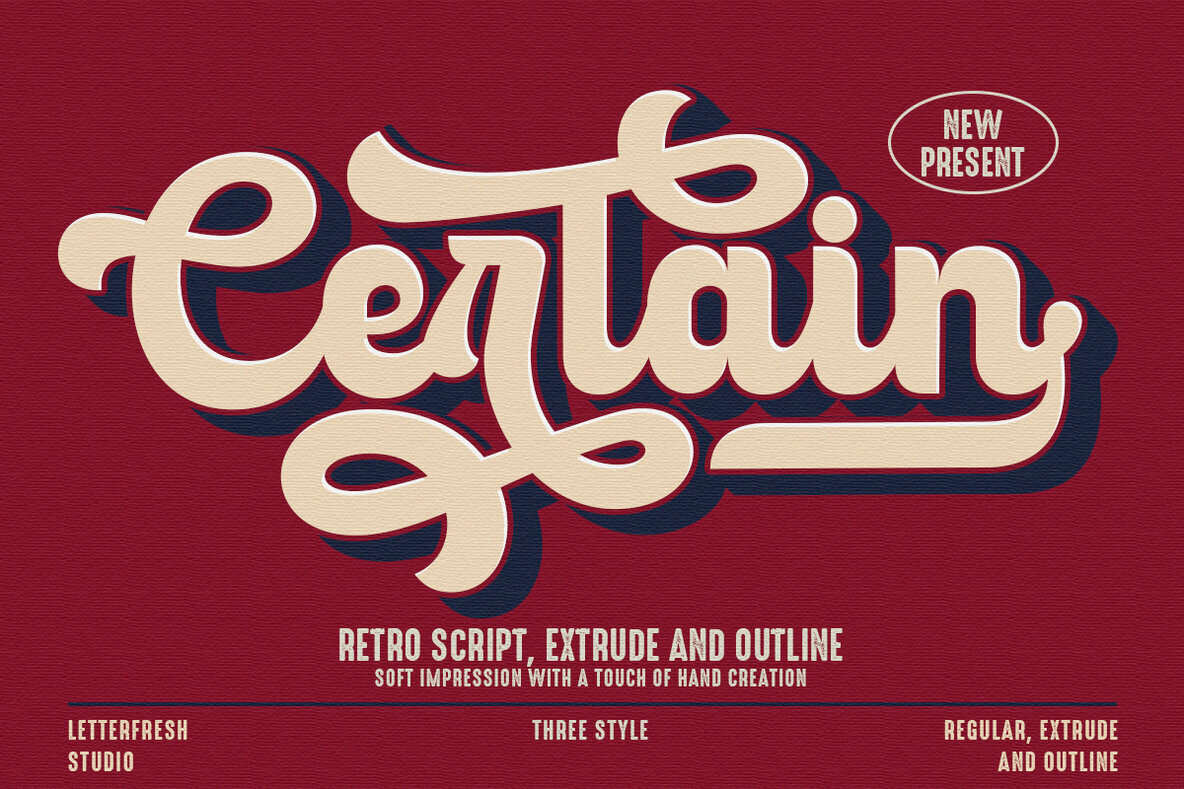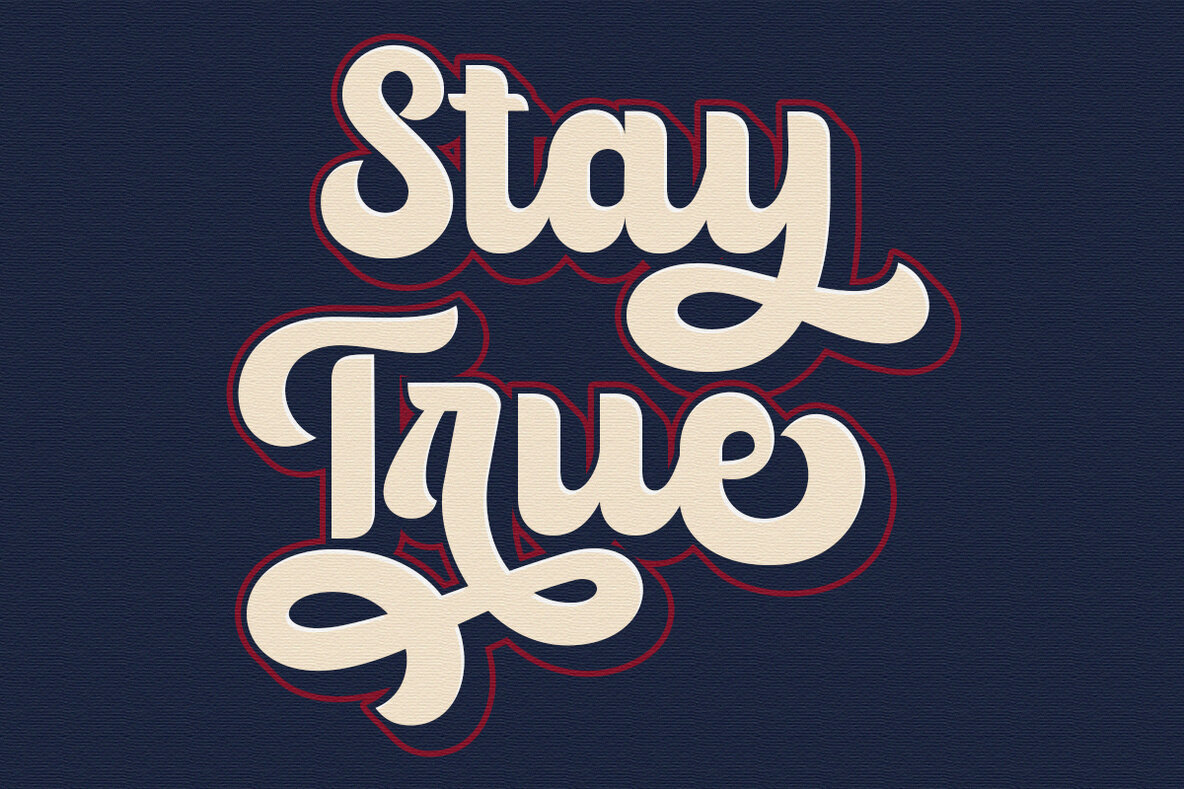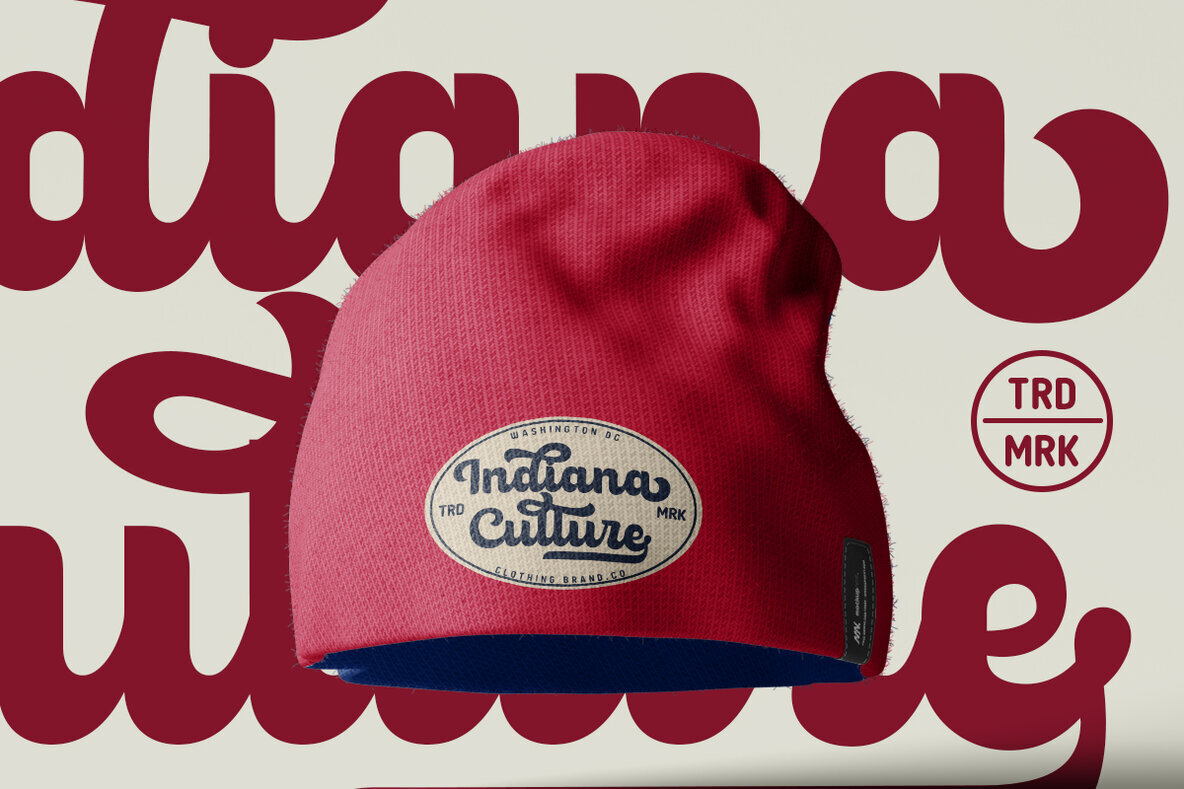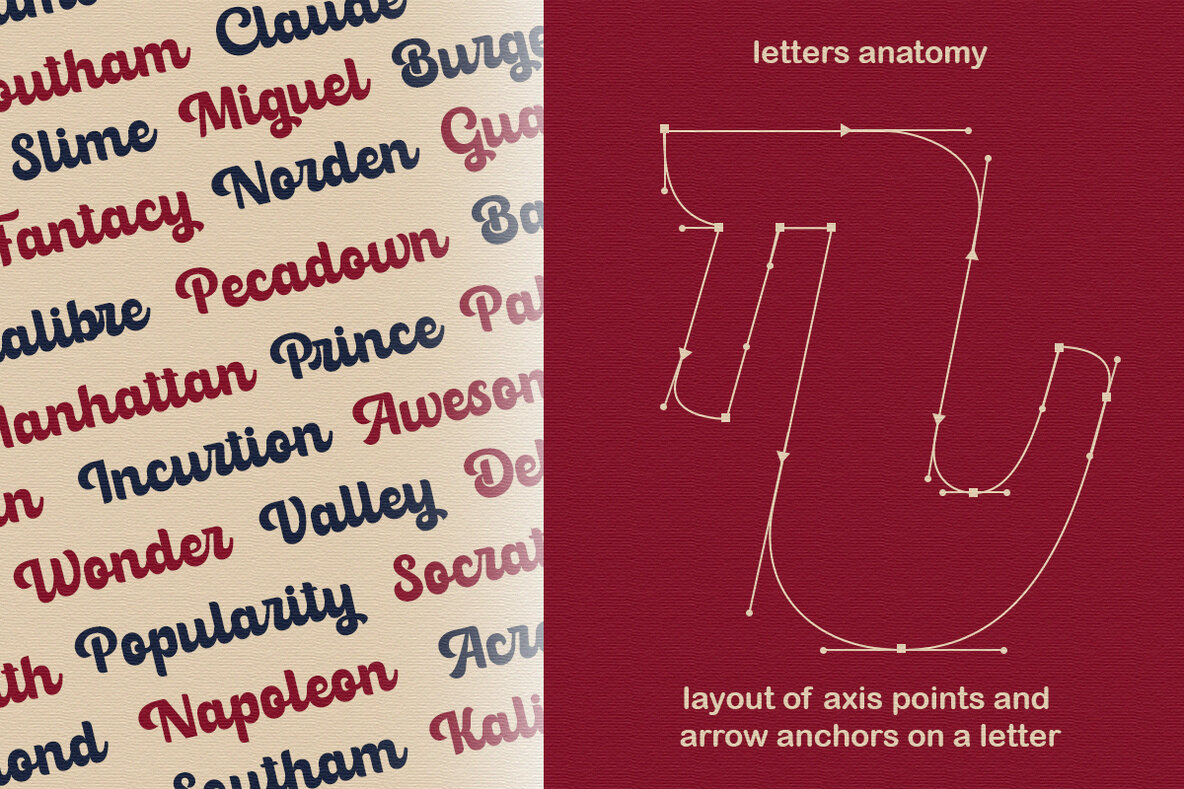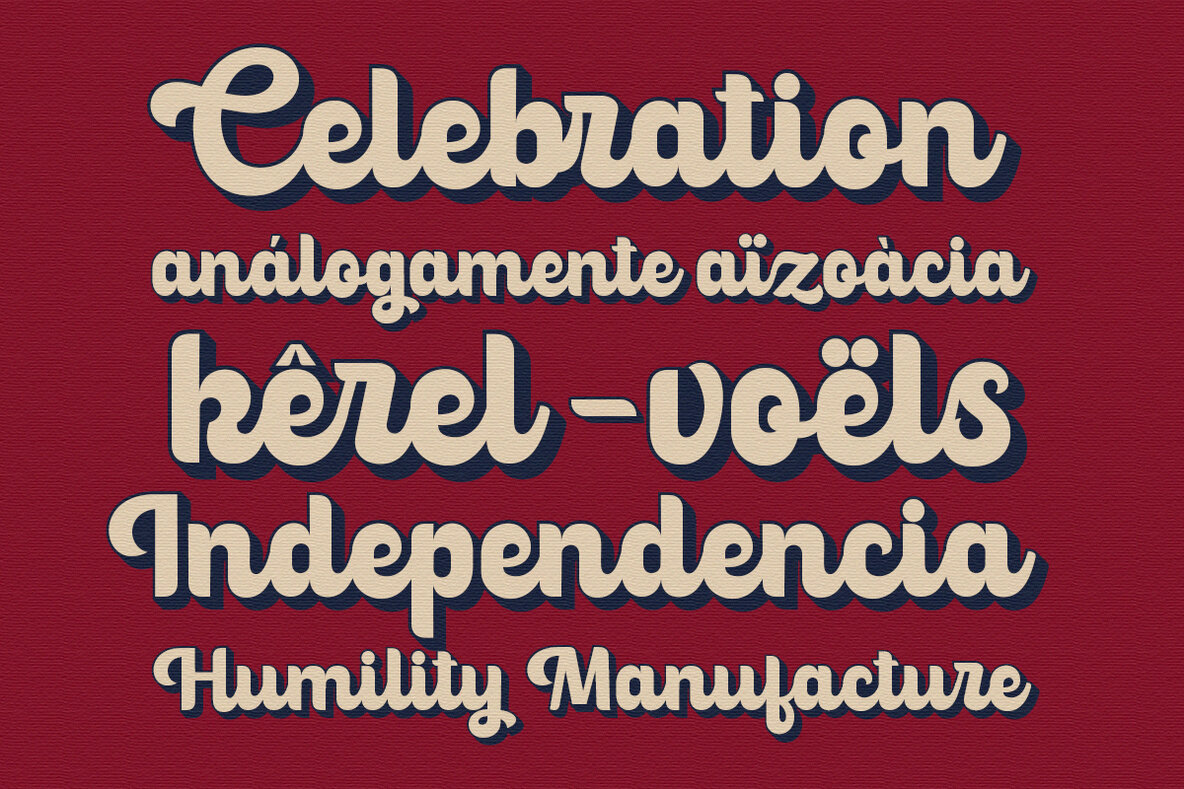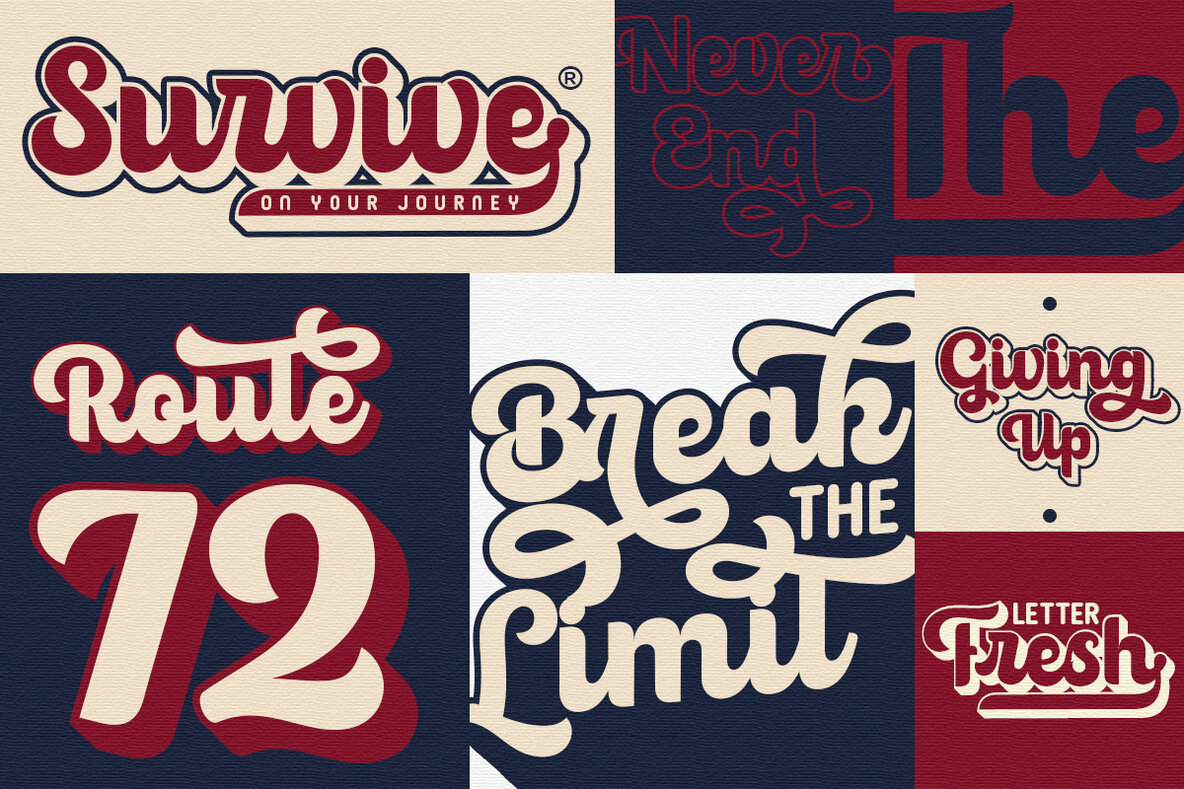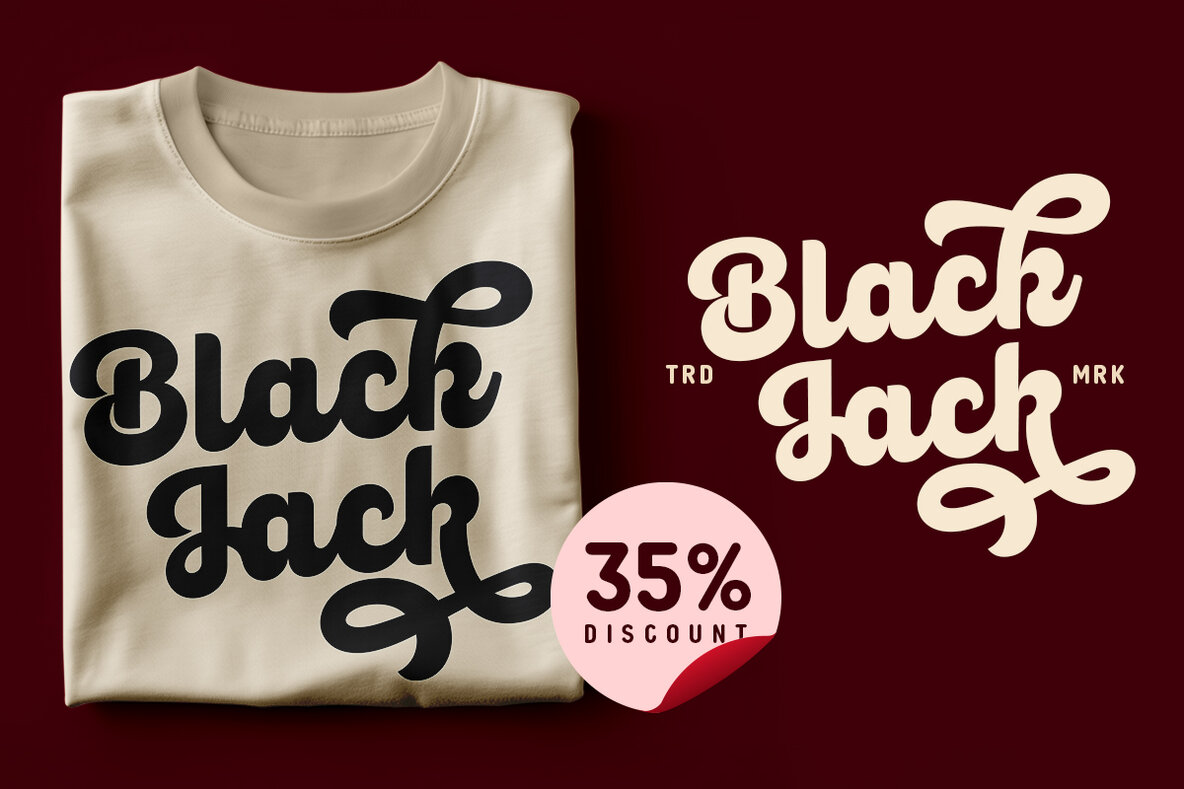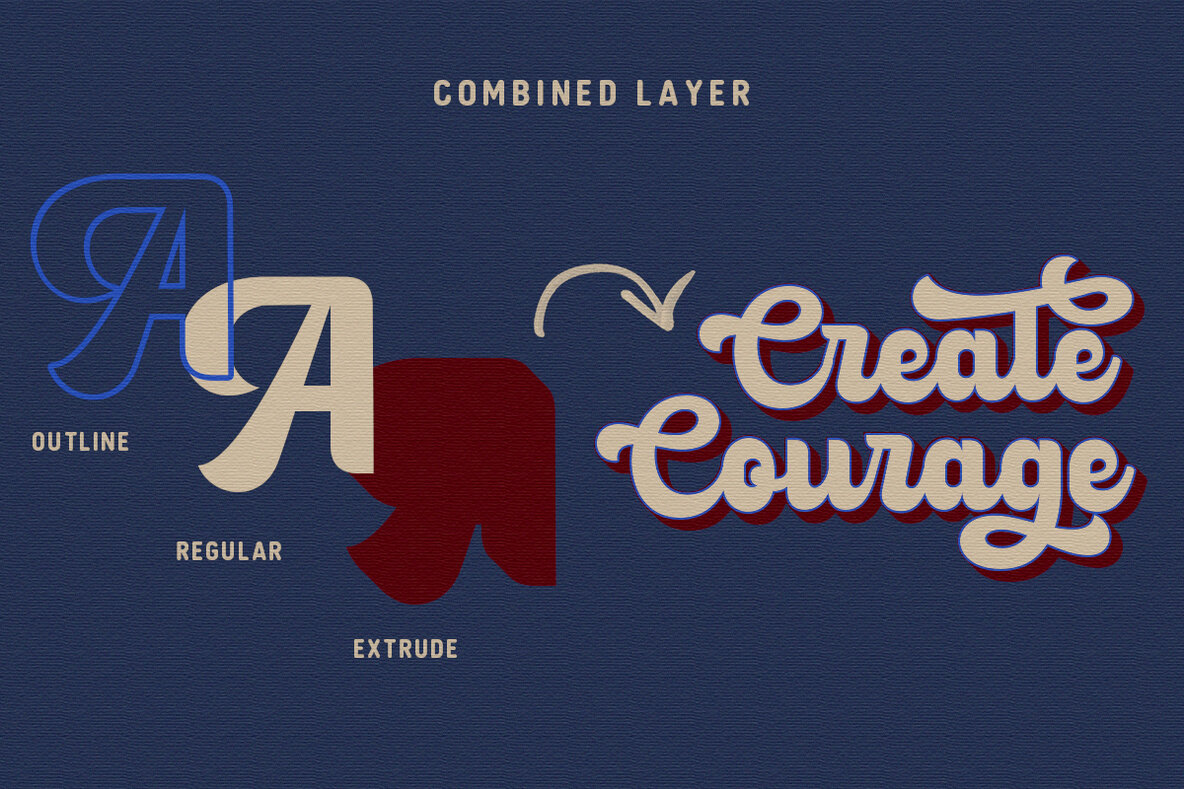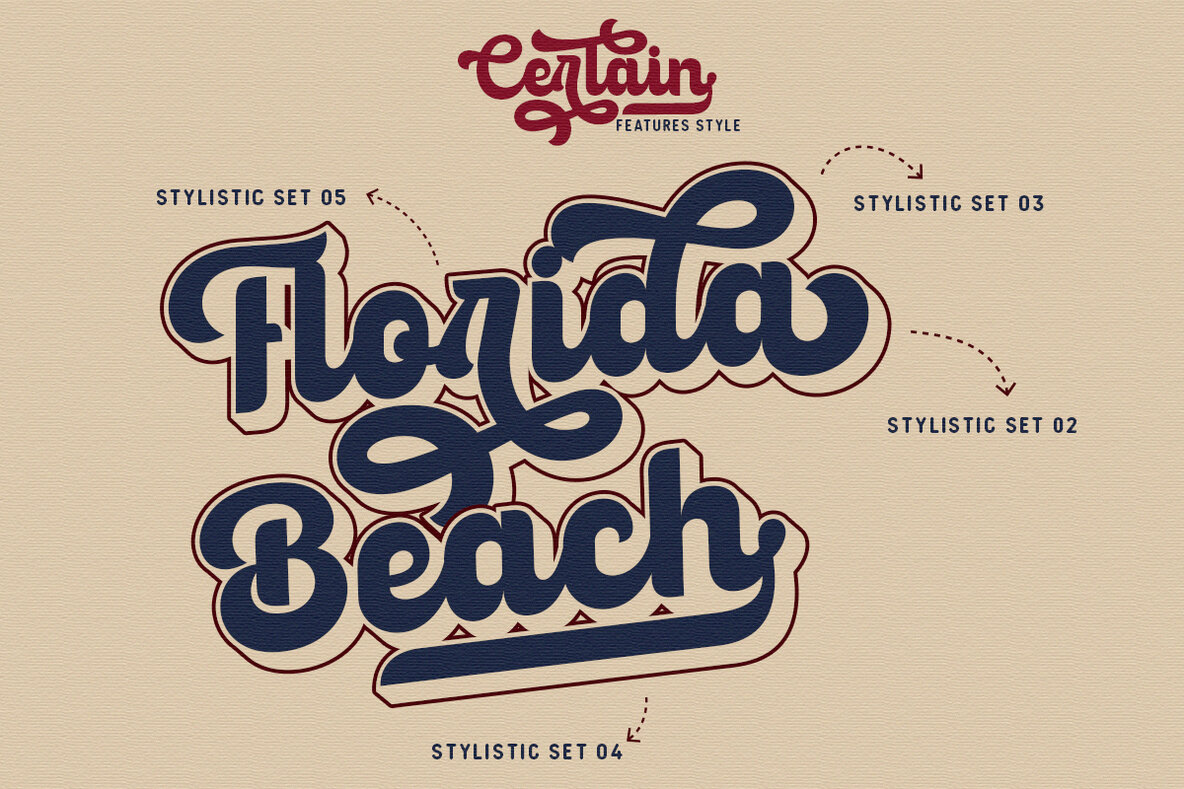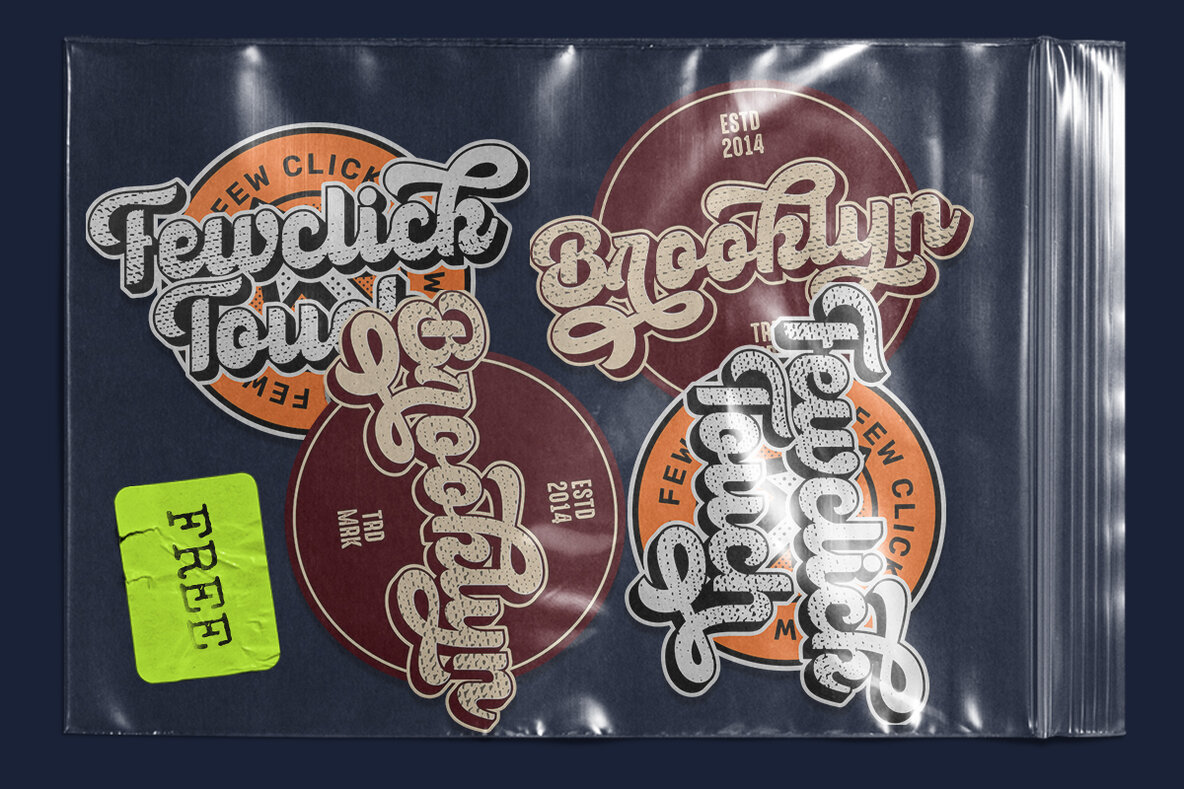
Certain Font
Certain by LetterFresh Studio is a bold retro script typeface that channels the vibrant spirit of the 1960s. Instantly add a touch of nostalgia with its unique extrude version, perfect for creating eye-catching retro effects. This versatile font is ideal for a variety of applications, from logos to formal invitations, labels, magazines, books, greeting cards, and more. For the best experience, we suggest using software that supports OpenType features and has a Glyphs panel, like Adobe and Corel Draw applications. Embark on a creative adventure with this captivating typeface, and bring your designs to life with its classic charm and versatility.Certain Typeface: A Journey Back to the Swinging Sixties